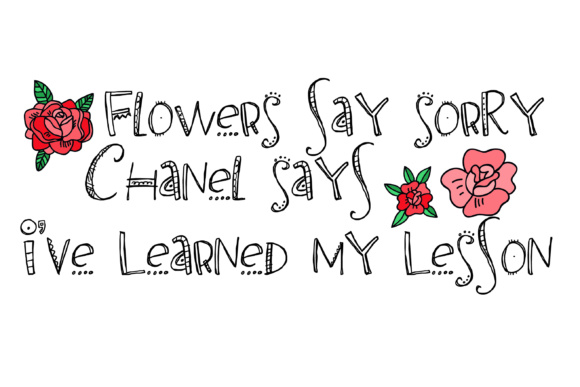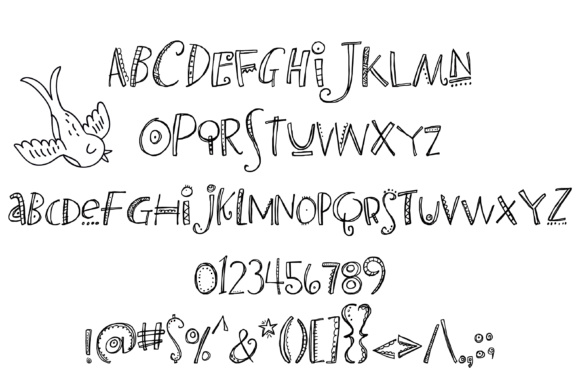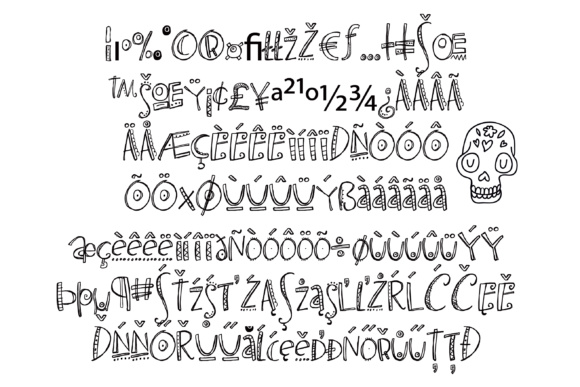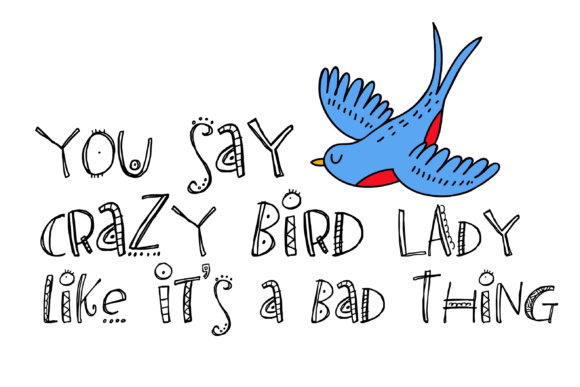
HomeScript FontsCranky Font Script Fonts Cranky Font FacebookXPinterestWhatsApp Cranky Font Poster 2 Cranky Font Poster 3 Cranky Font Poster 4 Cranky Font Poster 5 About Cranky Font The Cranky is a hand-illustrated font which features sketches and hand-drawn decor on each letter. DOWNLOAD ON CREATIVE FABRICAThis font is sold and delivered by Creative Fabrica. Font Canyon may earn a commission if you buy through this link. People also explored Himalaya Font Hallery Font Hu Cookie Font Baguette Font Child Proner Font Elegant Fashion Duo Font Nature Reserve Font Summer Kali Font Mermaid Font 307 0 TagsCranky Font Previous articleCarbohydrate FontNext articleJames Black Font LEAVE A REPLY Cancel reply Comment: Please enter your comment! Name:* Please enter your name here Email:* You have entered an incorrect email address! Please enter your email address here Website: Save my name, email, and website in this browser for the next time I comment. Personal Use Free Droid Personal Use Free Read more about this font Baveuse Personal Use Free Read more about this font Geracella Personal Use Free Read more about this font The 10 Best Handwriting Fonts to Add Personality to Your Designs Blog Read more about this font BLOG Best Fonts for YouTube Videos: Make Your Thumbnails Stand Out Best Fonts for YouTube Videos: Make Your Thumbnails Stand Out Choosing the right font can make a massive difference in how your YouTube videos perform.... Elegant Wedding Invitation Fonts – Handwritten & Script Fonts Top 10 Handwritten Fonts That Elevate Your Designs Free Fonts Risk: Why Free Fonts Can Be Dangerous for Designers